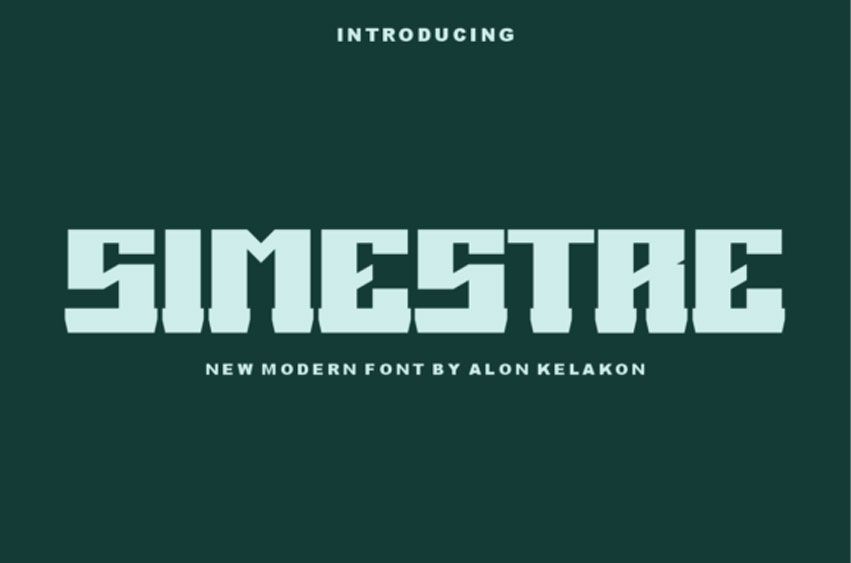
Simestre Font
Simestre Font is a unique sans serif font ready to use for your design like labeling, clothing, movie screen, poster, movie title, gigs, album covers, logos, and much more.
It will certainly amaze your readers.